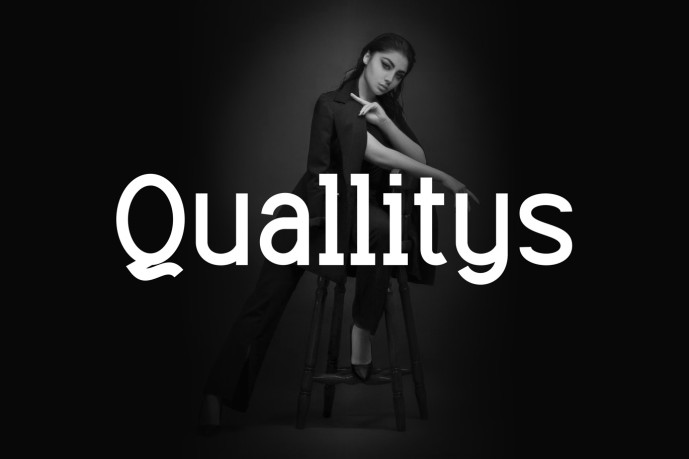
Quallitys – Sans Serif Modern Font
Introducing our new product Quallitys – Sans Serif Modern Font
Quallitys – Sans Serif Modern Font is a bold and authentic display font. The font is suitable for any branding project like logo, esport, and many more. outstanding in a wide range of contexts.